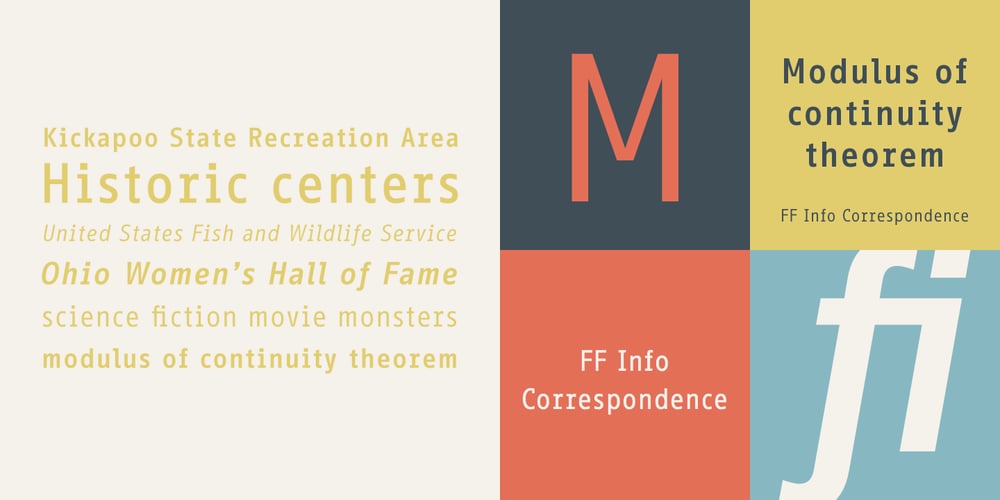
FF Info Correspondence Font Family was designed by Ole Schäfer, Erik Spiekermann and published by FontFont. FF Info Correspondence contains 6 styles and family package options. German type designers Erik Spiekermann and Ole Schäfer created this sans FontFont in 1998. The family has 6 weights, ranging from Regular to Bold (including italics) and is ideally suited for advertising and packaging and logo, branding and creative industries. FF Info Correspondence provides advanced typographical support with features such as ligatures, alternate characters, case-sensitive forms, fractions, super- and subscript characters, and stylistic alternates. It comes with proportional lining and tabular lining figures. In 1998, FF Info Correspondence received the The Big Crit award. This FontFont is a member of the FF Info super family, which also includes FF Info Display and FF Info Text.